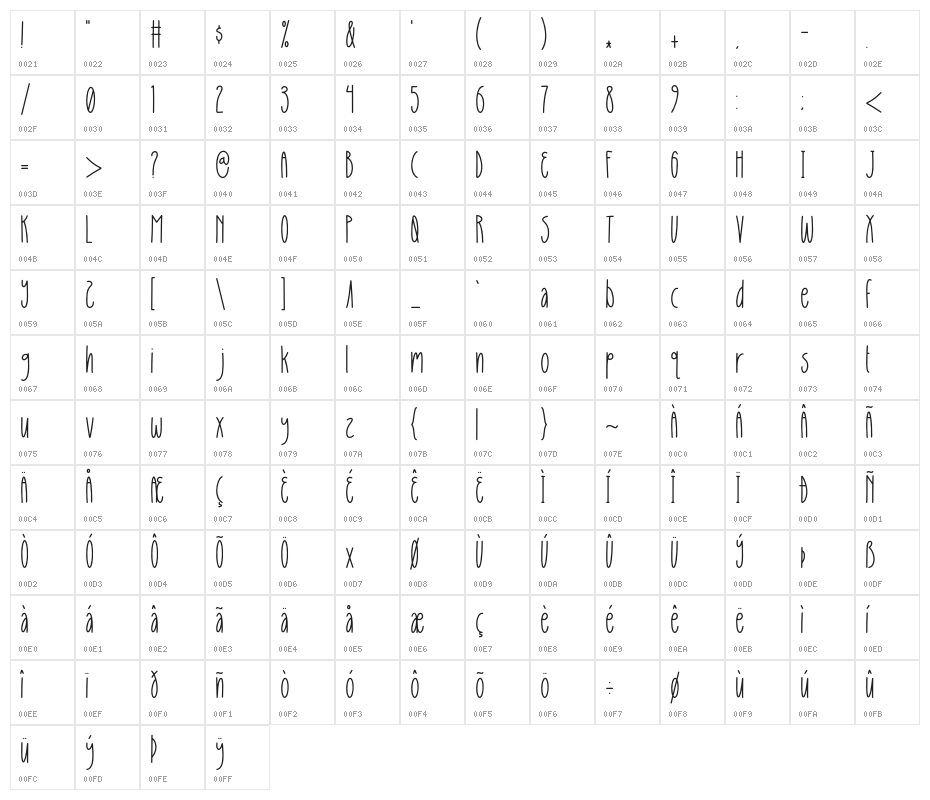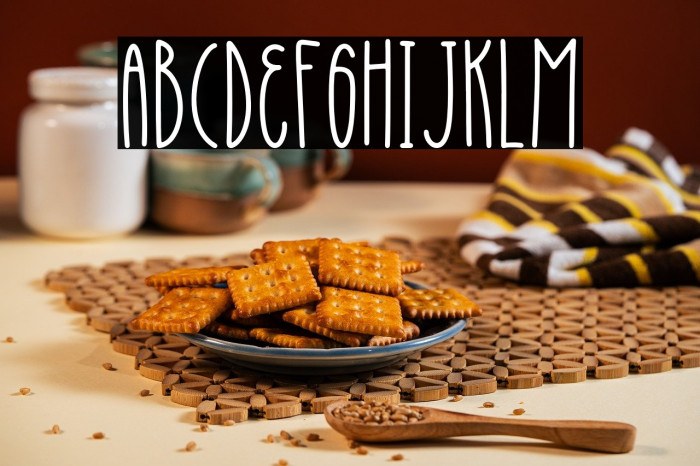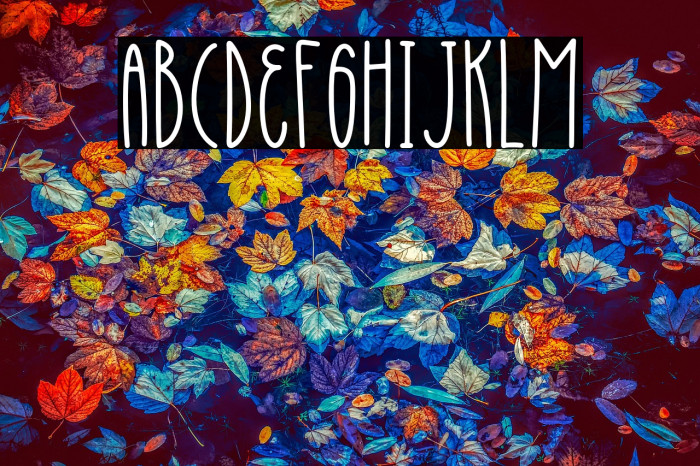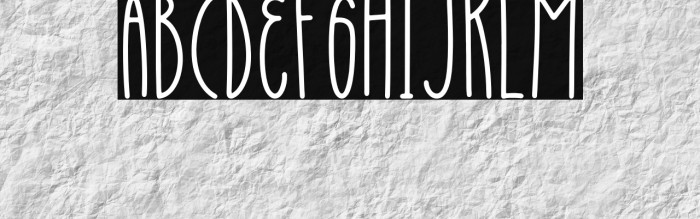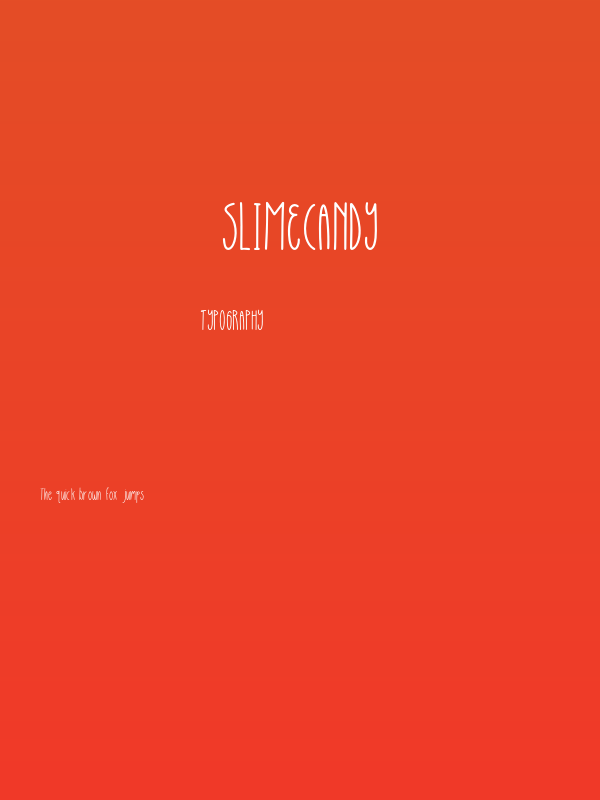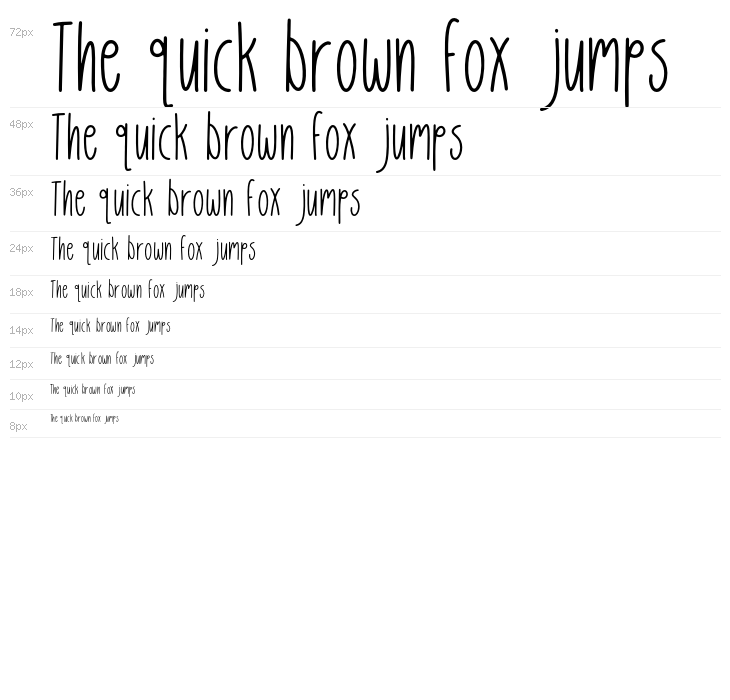
SlimeCandy Font
SlimeCandy Description
This playful and whimsical font features tall, narrow letters with a hand-drawn aesthetic. The characters have a consistent stroke width, giving them a uniform appearance. The uppercase and lowercase letters maintain a quirky, informal style, making them ideal for creative and fun projects. The numbers and special characters follow the same playful design, ensuring a cohesive look across all text elements. The font's unique charm is perfect for adding a touch of personality to any design.
| Proposed Projects | Ideal for children's book covers, playful branding, greeting cards, and creative posters. |